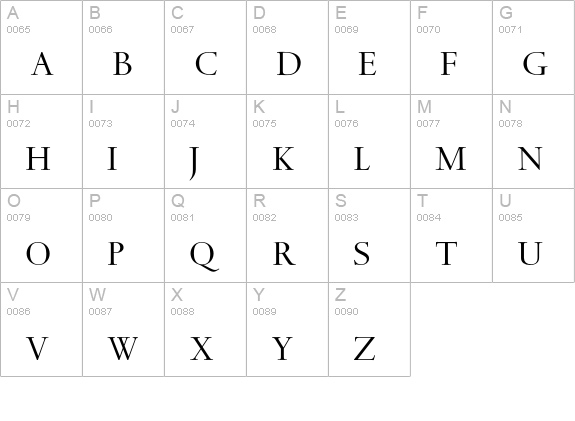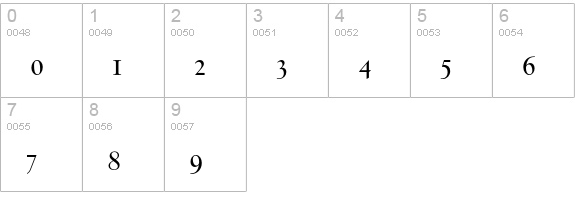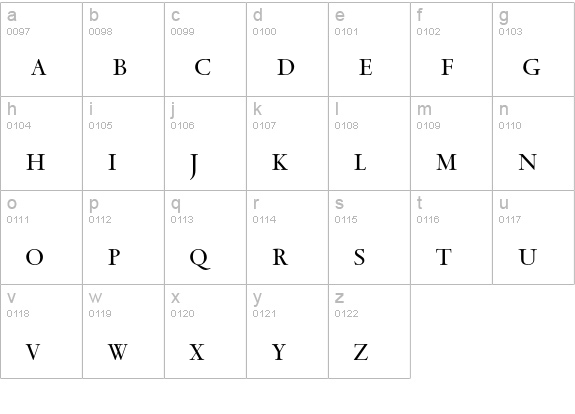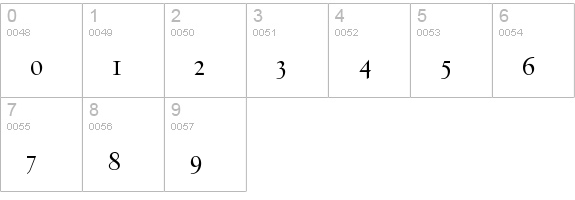
Spectrum MT Small Caps & Oldstyle Figures Font Details
Introducing Spectrum MT Small Caps & Oldstyle Figures, a captivating and versatile font that seamlessly blends tradition with a modern twist. This exquisite typeface is meticulously designed to elevate any project, whether it's a logo, branding materials, editorial layout, or website design. The Spectrum MT Small Caps & Oldstyle Figures font exudes timeless elegance with its delicate yet confident letterforms. The small caps add a touch of sophistication and uniqueness, while the oldstyle figures infuse a sense of classic charm. This combination sets the font apart, making it perfect for both contemporary and traditional designs. With its wide range of weights and styles, Spectrum MT Small Caps & Oldstyle Figures offers endless possibilities for typography enthusiasts. From the bold and commanding to the light and graceful, this font provides the flexibility needed to create captivating compositions that leave a lasting impression. But what truly sets Spectrum MT Small Caps & Oldstyle Figures apart is its availability for free download at FontsMarket.com. Yes, you read that right - this exceptional font can be yours at no cost. FontsMarket.com is proud to offer this font to designers, professionals, and enthusiasts alike, ensuring that creativity knows no boundaries. So whether you're a seasoned designer looking to add a touch of refinement to your next project or a budding creator eager to experiment with typography, Spectrum MT Small Caps & Oldstyle Figures is the perfect choice. Download this remarkable font from FontsMarket.com today and embark on a journey of limitless creativity.